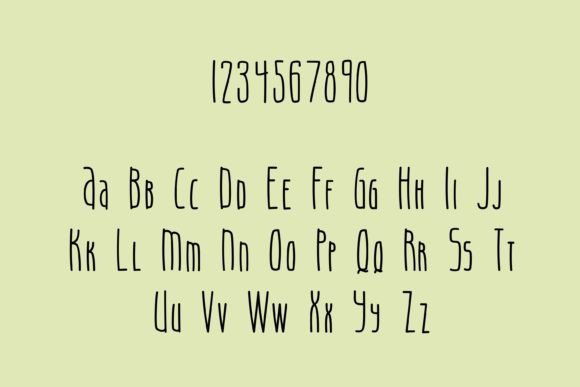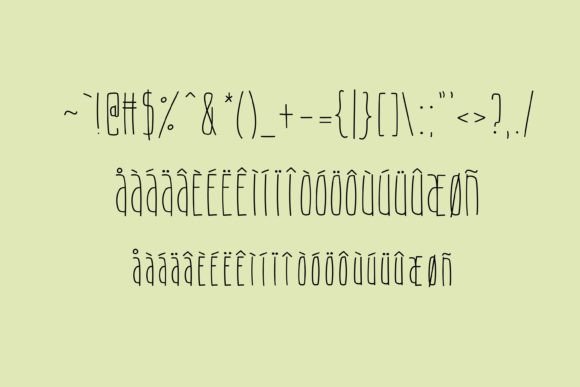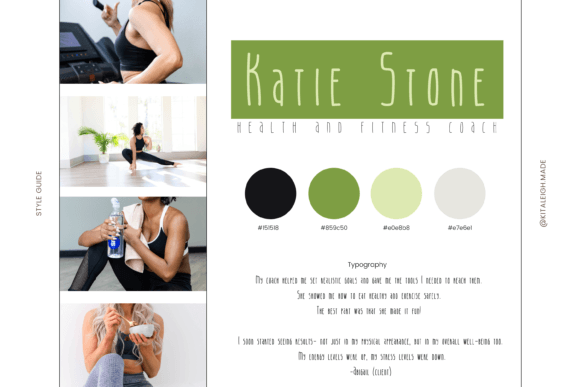
Introduction to Chirping Birds Font
Introducing Chirping Birds, a delightfully thin and whimsical font that’s perfect for adding a playful touch to your projects.
Available in Regular, Thin, and Ultra Thin styles, this font is versatile and elegant, making it ideal for anything from logos to invitations With its charming letterforms and delicate strokes, Chirping Birds brings a light and breezy feel to any design, perfect for nature-inspired or spring-themed projects.
Key Features of Chirping Birds Font
Why Choose Chirping Birds Font?